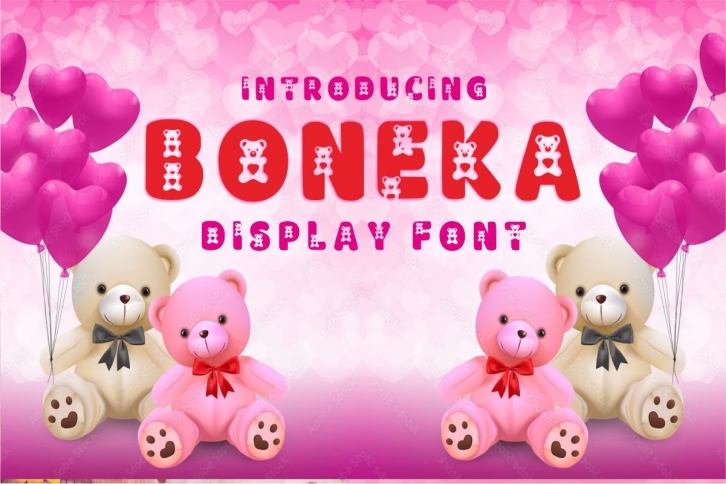
Doll is a childish and cute display font. Its informal and casual style makes it a top choice for any creation. It will look cool on visual designs and works such as product packaging, T-shirts, labels, logos, and more.